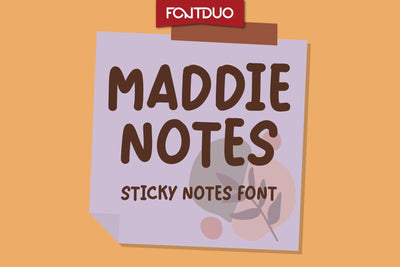
Maddie Sticky Notes Font
There's nothing cuter than a handwritten font such as Maddie Notes FD. Its potential to elevate any creation will make this font a valuable addition to your font collection.